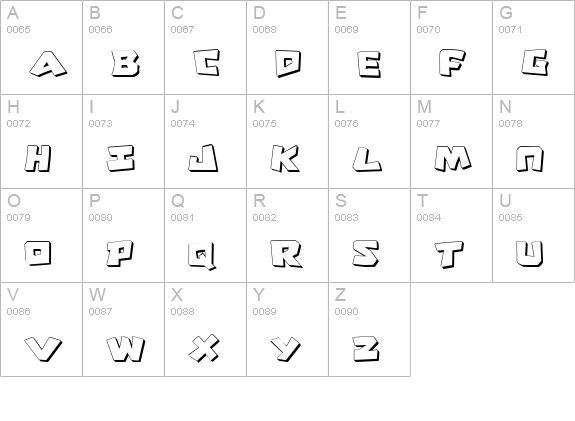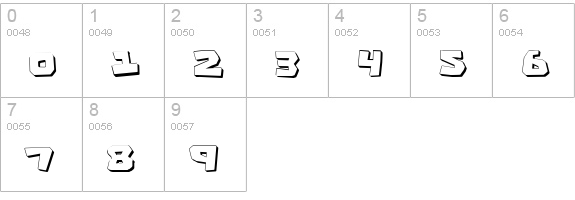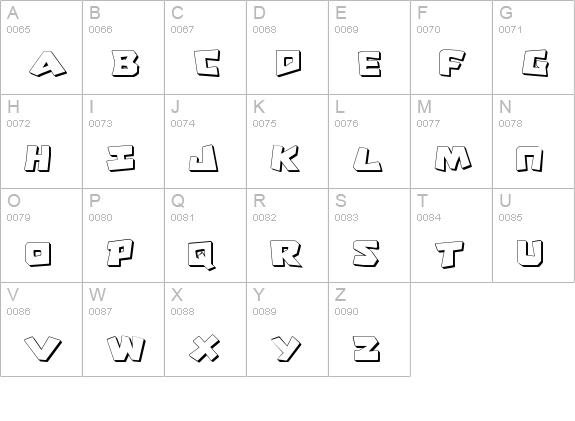
Cro-Magnum Shadow Font Details
Introducing Cro-Magnum Shadow font, a bold and striking typeface that exudes a sense of power and mystery. With its rugged edges and shadowed effect, this font is perfect for adding a touch of primal energy to your designs. Whether you're working on a poster, logo, or website, Cro-Magnum Shadow will make a bold statement that demands attention. Best of all, Cro-Magnum Shadow font is available for free download at FontsMarket.com. This means you can easily add this unique typeface to your collection without any cost. Don't miss out on the opportunity to enhance your projects with the captivating style of Cro-Magnum Shadow font. Download it today and let your creativity run wild!